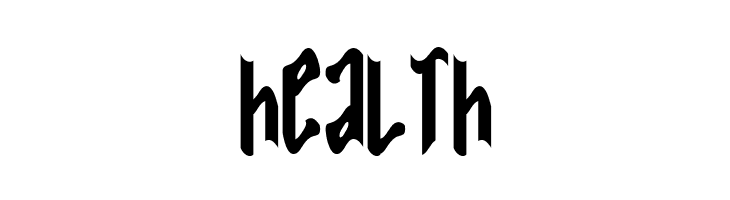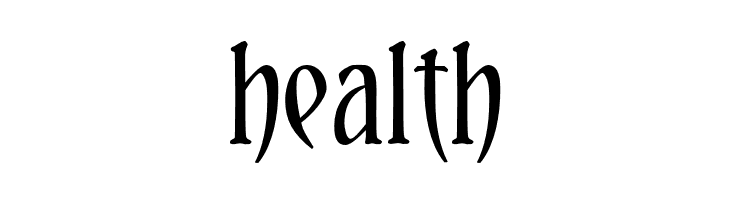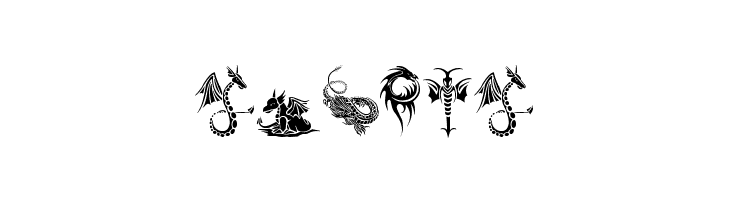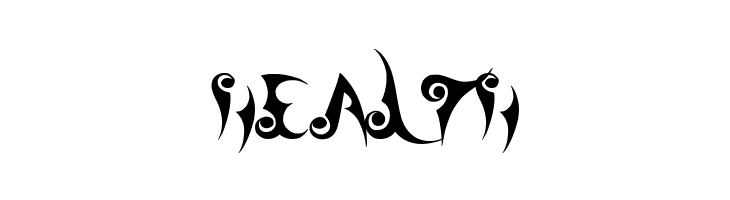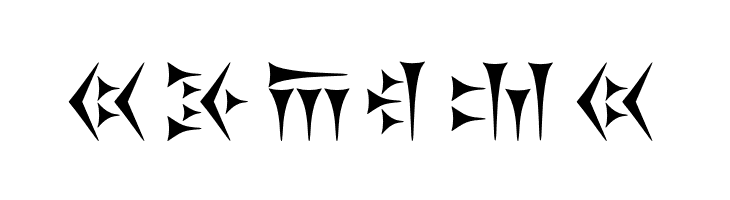
A bold Gothic font with sharp, angular lines and intricate detailing.
A bold, runic-style font with a textured, ancient appearance.
An artistic font with elongated, curved strokes and a distinct, exotic appearance.
Intricate tribal dragon designs with bold lines and dynamic poses.
A decorative and whimsical font with bold, swirling elements and intricate detailing.
A decorative, ancient script-inspired font with sharp, angular lines and geometric shapes.
A bold, gothic blackletter font with intricate, decorative details.
A decorative font with organic, vine-like embellishments.
An ornate and dramatic font with sharp serifs and intricate detailing.
An ornate, medieval-inspired font with intricate and decorative letterforms.